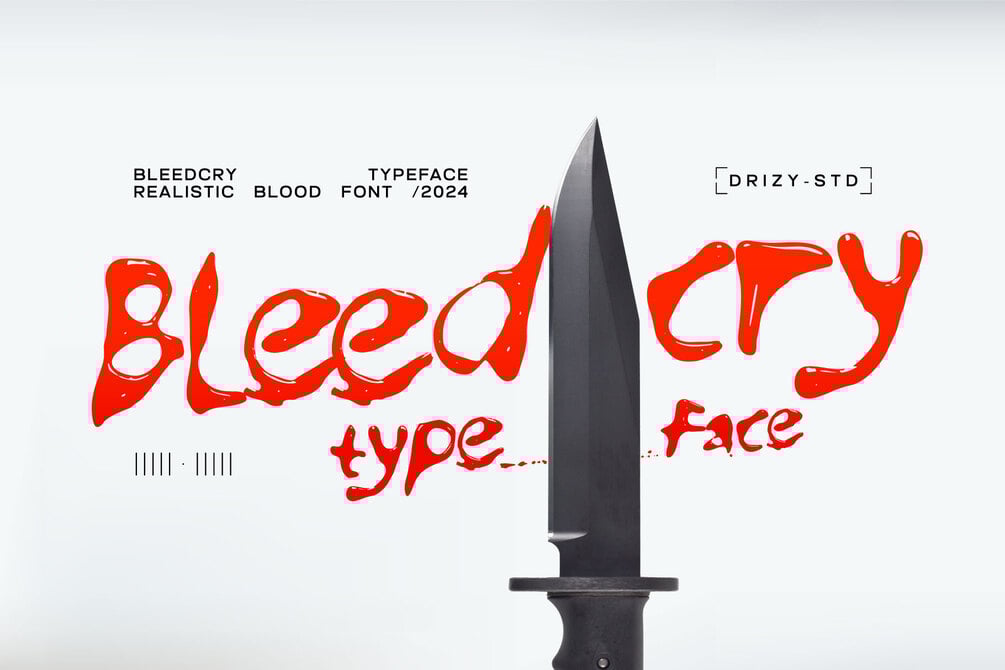
Bleedcry Typeface – Realistic Blood Font
Introducing Bleedcry Typeface – Realistic Blood Font, a one of a kind typeface that immerses your designs in the gritty allure of Noir Crime aesthetics. This striking font is more than just letters on a page it’s a bold statement, a visceral artistic expression that channels the raw intensity of blood, evoking themes of passion, drama, and suspense. Each character in Bleedcry is meticulously crafted to reflect the haunting beauty of fluid motion, with sharp edges and flowing strokes that mirror the unpredictable nature of blood. Bleedcry empowers you to tell stories that resonate with intensity. Use this font to add depth and intrigue to your designs, inviting viewers to step into a world of mystery and raw emotion.